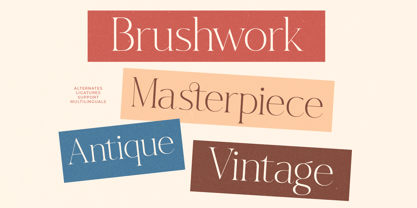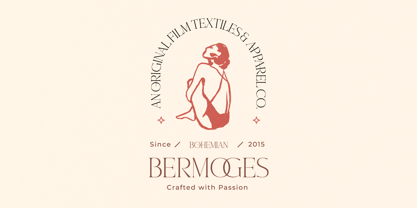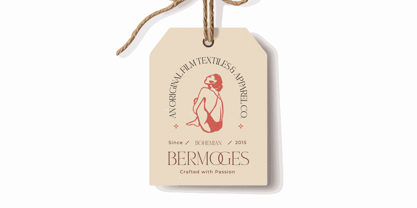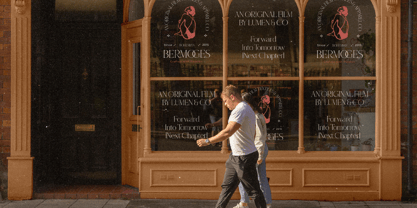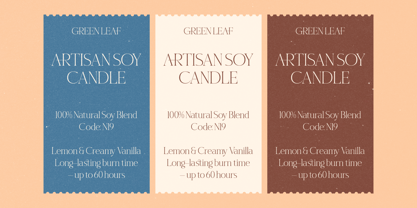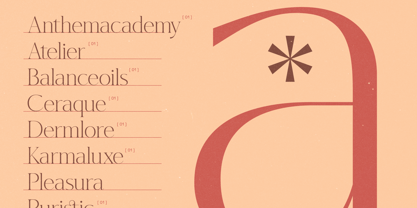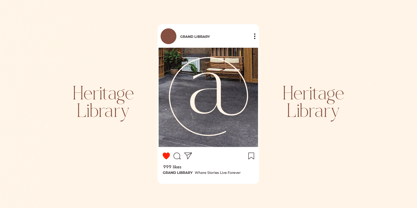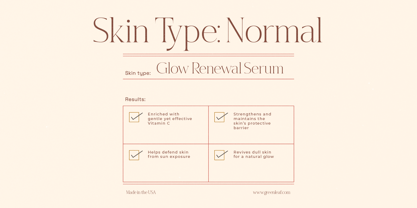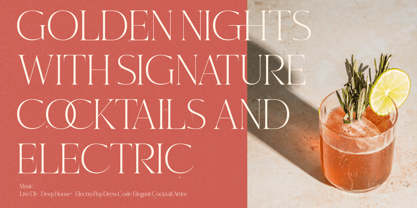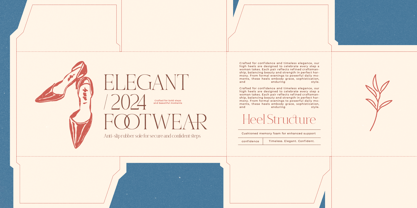
Hekgest
Hekgest is an elegant modern serif font designed to blend timeless sophistication with contemporary refinement. Featuring graceful proportions, smooth curves, and refined stroke contrast, this typeface delivers a balanced aesthetic that feels both classic and current. Perfect for luxury branding, editorial layouts, high-end packaging, fashion campaigns, corporate identities, and premium logos, Hekgest creates a polished and confident visual presence. With 370 glyphs, 40 ligatures, and full multilingual support, it provides versatile typographic flexibility while maintaining clarity and elegance. Whether used for distinguished headlines or refined body text, Helkgest brings understated luxury and modern authority to both print and digital design projects.